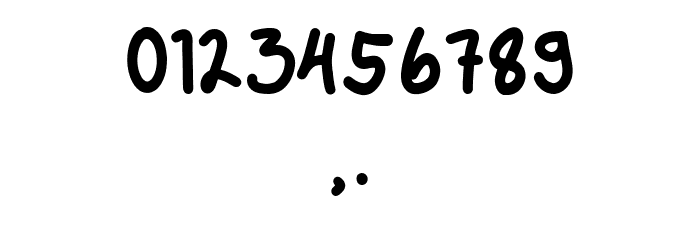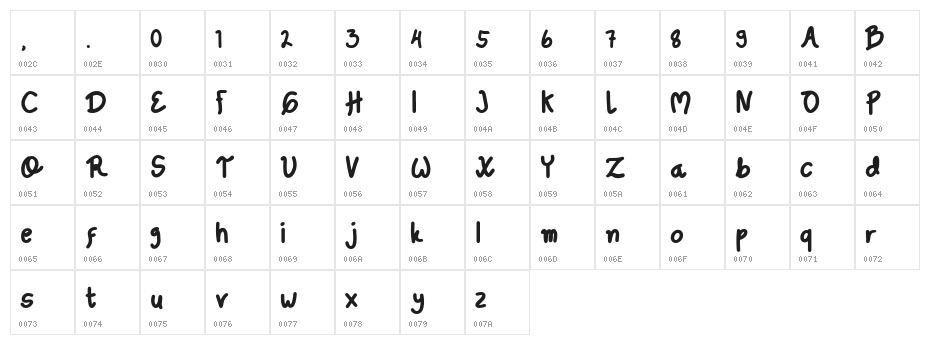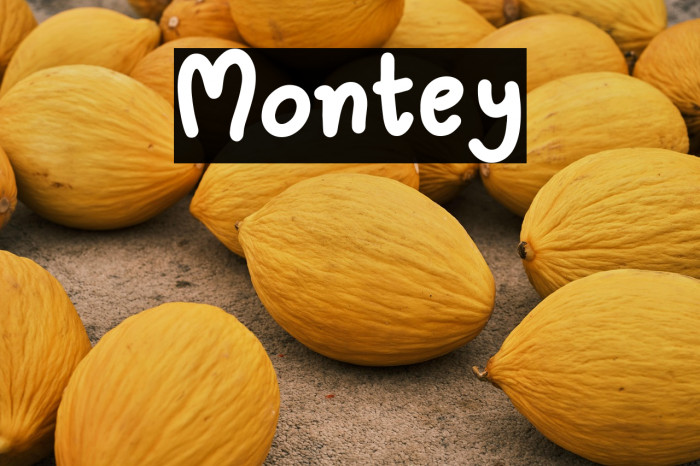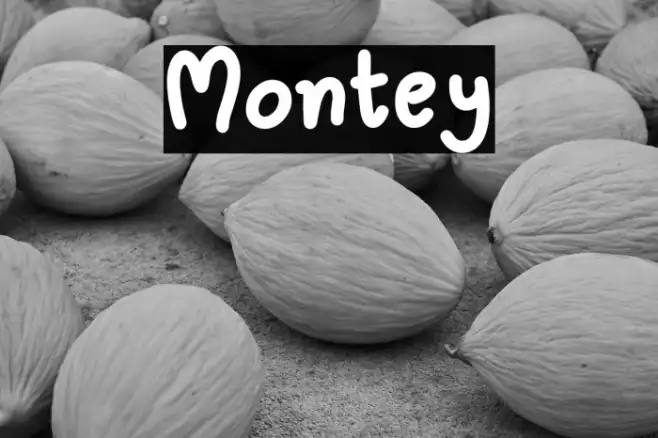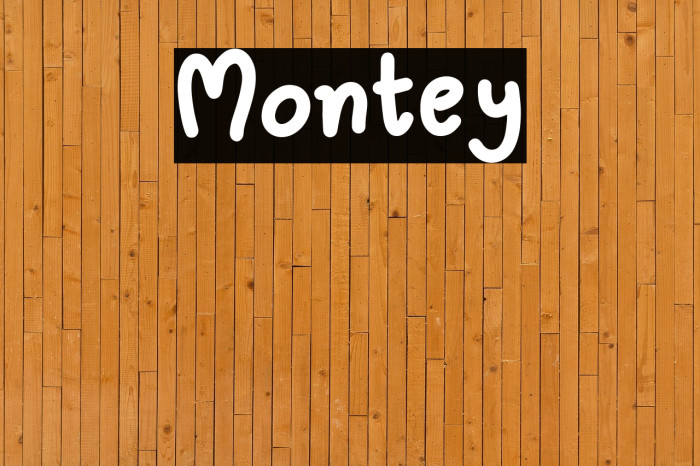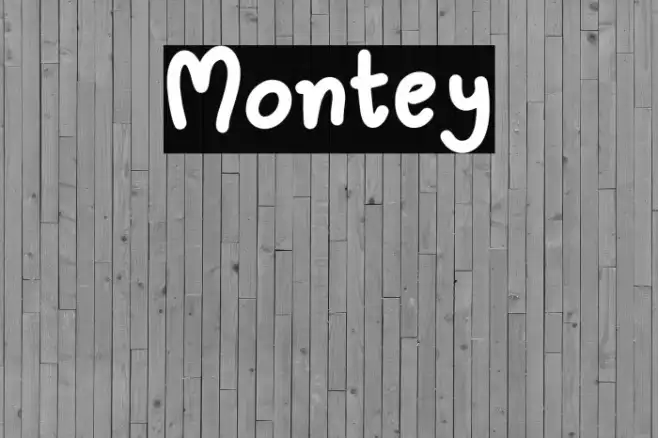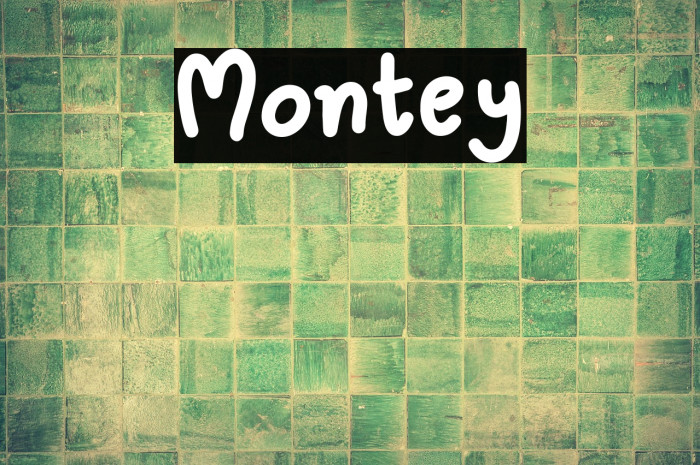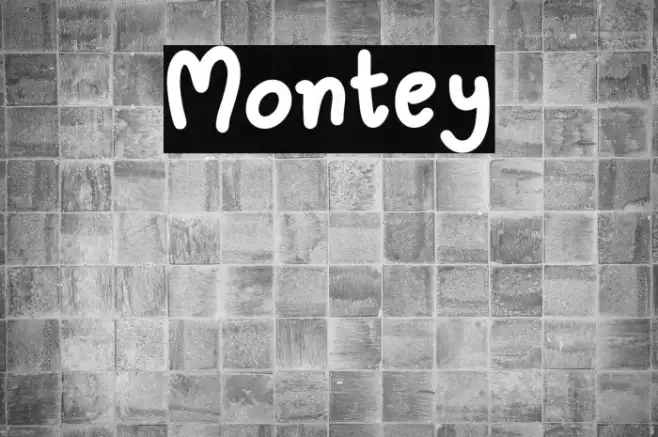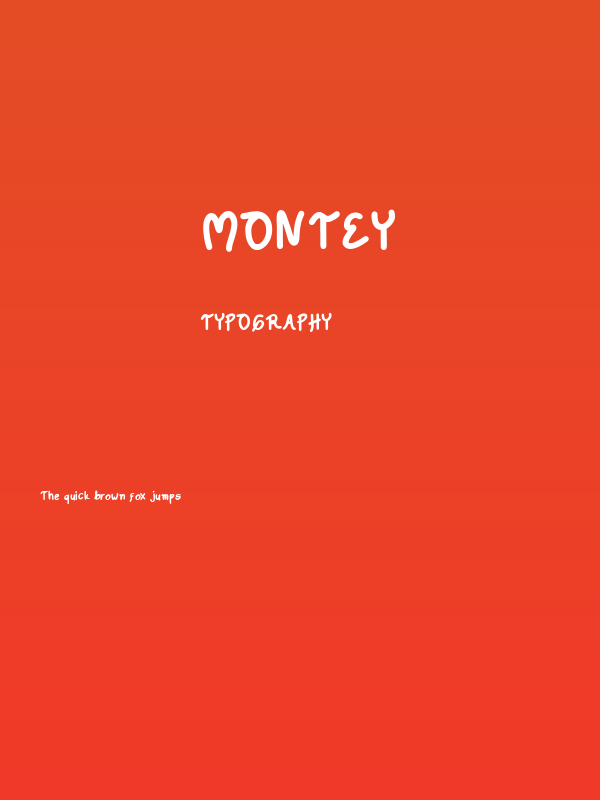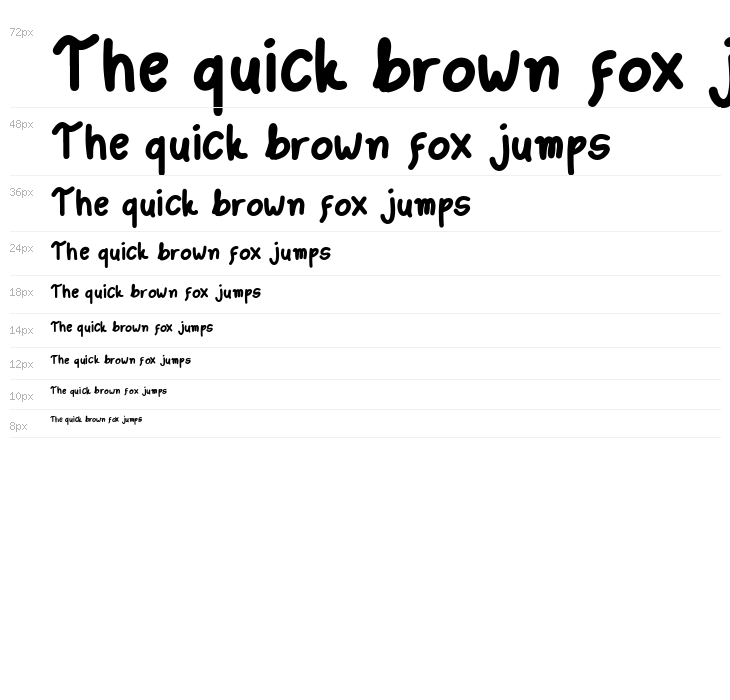
Montey Font
Montey Description
This playful and bold font features a handwritten style with smooth, rounded edges and a casual, friendly appearance. The uppercase letters are slightly larger and more pronounced, while the lowercase letters maintain a consistent flow, enhancing readability. Numbers and special characters follow the same whimsical design, making the font versatile for various creative projects. The strokes are uniform, with medium contrast, giving it a balanced look. Its informal style makes it ideal for projects that require a personal touch or a fun, approachable vibe.
| Proposed Projects | Ideal for children's books, greeting cards, playful branding, and social media graphics. |